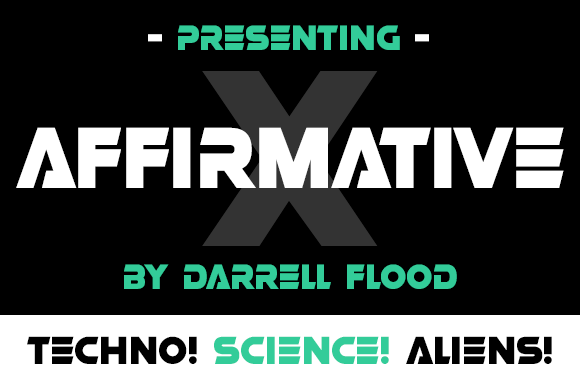
Affirmative Font: The Ultimate Display Font for Speed, Power, and Sports Designs
Are you looking for a font that can add a boost of energy and excitement to your designs? Look no further than the Affirmative Font! This cool, bold, and thick lettered display font is perfect for designs related to speed, power, or sports. In this article, we’ll dive into the features and benefits of the Affirmative Font and explore how you can use it to take your designs to the next level.
What is Affirmative Font?
Affirmative Font is a display font designed to make a statement. Its bold and thick lettering makes it perfect for headlines, titles, and any other design element that needs to grab attention. The font is clean, modern, and highly legible, making it easy to read even at large sizes.
Key Features of Affirmative Font
- Bold and Thick Lettering: The Affirmative Font features bold and thick lettering that makes it perfect for designs that need to convey speed, power, or energy.
- Clean and Modern Design: The font has a clean and modern design that makes it highly legible and easy to read.
- Versatile: The Affirmative Font can be used for a wide range of designs, from sports and fitness to technology and finance.
- Easily Customizable: The font is easily customizable, allowing you to adjust the letter spacing, size, and color to fit your design needs.
How to Use Affirmative Font in Your Designs
The Affirmative Font is perfect for designers and crafters who want to add a touch of excitement and energy to their designs. Here are some ideas for using the Affirmative Font:
- Sports and Fitness Designs: Use the Affirmative Font to create bold and eye-catching headlines for sports and fitness designs, such as workout posters, sports team logos, or fitness class flyers.
- Technology and Finance Designs: The Affirmative Font can also be used for technology and finance designs, such as software company logos, financial reports, or tech product launch announcements.
- Event and Promotion Designs: Use the Affirmative Font to create bold and attention-grabbing headlines for event and promotion designs, such as concert posters, sale flyers, or event invitations.
Benefits of Using Affirmative Font
There are many benefits to using the Affirmative Font in your designs. Here are a few:
- Increased Legibility: The Affirmative Font is highly legible, even at large sizes, making it perfect for designs that need to be easily readable.
- Boosts Energy and Excitement: The bold and thick lettering of the Affirmative Font adds a boost of energy and excitement to your designs, making them more engaging and attention-grabbing.
- Customizable: The Affirmative Font is easily customizable, allowing you to adjust the letter spacing, size, and color to fit your design needs.
Tips and Tricks for Using Affirmative Font
Here are some tips and tricks for using the Affirmative Font:
- Use it Sparingly: While the Affirmative Font is bold and attention-grabbing, it can be overwhelming if used too much. Use it sparingly to create a focal point in your design.
- Pair it with Other Fonts: The Affirmative Font pairs well with other fonts, such as sans-serif fonts or script fonts. Experiment with different font combinations to find the perfect look for your design.
- Adjust Letter Spacing: Adjusting the letter spacing of the Affirmative Font can help to create a more cohesive look and feel for your design.
In conclusion, the Affirmative Font is a powerful and versatile display font that is perfect for designs related to speed, power, or sports. Its bold and thick lettering makes it highly legible and attention-grabbing, while its clean and modern design makes it easy to read. With its ease of customization and versatility, the Affirmative Font is a must-have for designers and crafters looking to add a touch of excitement and energy to their designs.